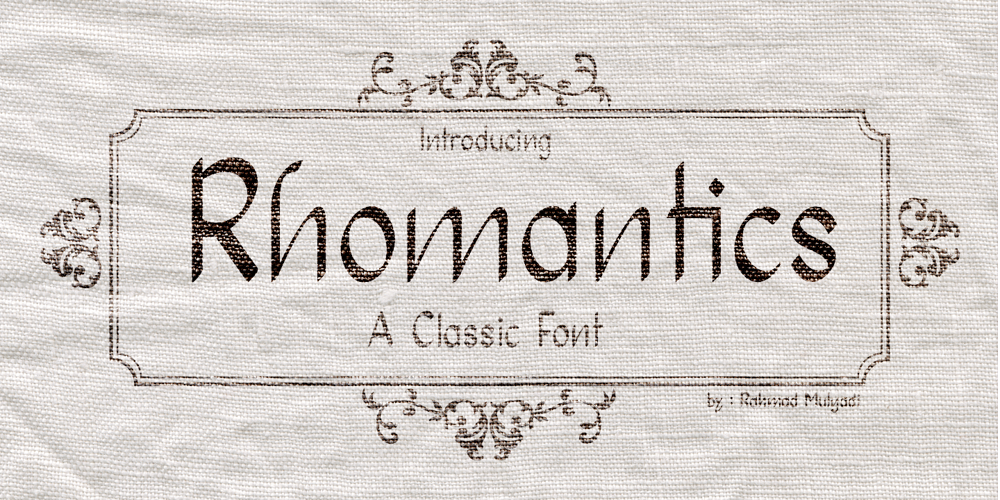
Rhomantics
Rhomantics font
Rhomantics Font Family was designed by Rahmad Mulyadi and published by BaronWNM. Rhomantics contains 1 styles and family package options. Rhomantics is a sans serif font that carries a classic style. Rhomantics font takes a simple form but still has a classic feel in its shape so it is easy to identify each character of the letter to make it easier for us to read. This font can be used in invoice designs, history book covers, branding, advertisements, business cards, etc.